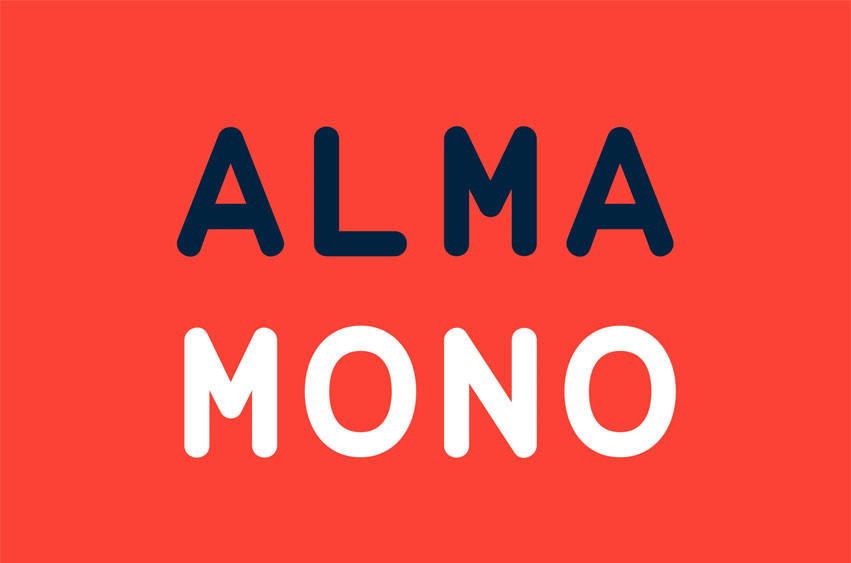
Alma Mono Font
Alma Mono Font is a friendly round monospace font. Alma Mono comes in five different weights and works as well as a heavy display type as in long format text.
Alma Mono also works quite well in a text editor of choice for those who spend their days coding.